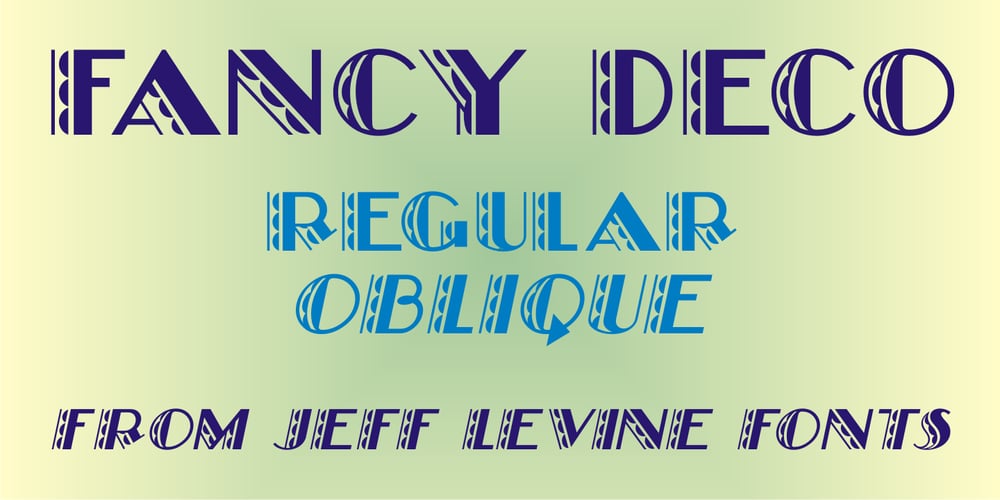
Fancy Deco JNL
Fancy Deco JNL font
Fancy Deco JNL Font Family was designed by Jeff Levine and published by Jeff Levine. Fancy Deco JNL contains 2 styles and family package options. This decorative, scalloped thick-and-thin Art Deco type design is one of the many inspirations found within the pages of the 1934 French lettering book “L’Art du Tracé Rationnel de la Lettre”. Now in digital format, Fancy Deco JNL is available in both regular and oblique versions.